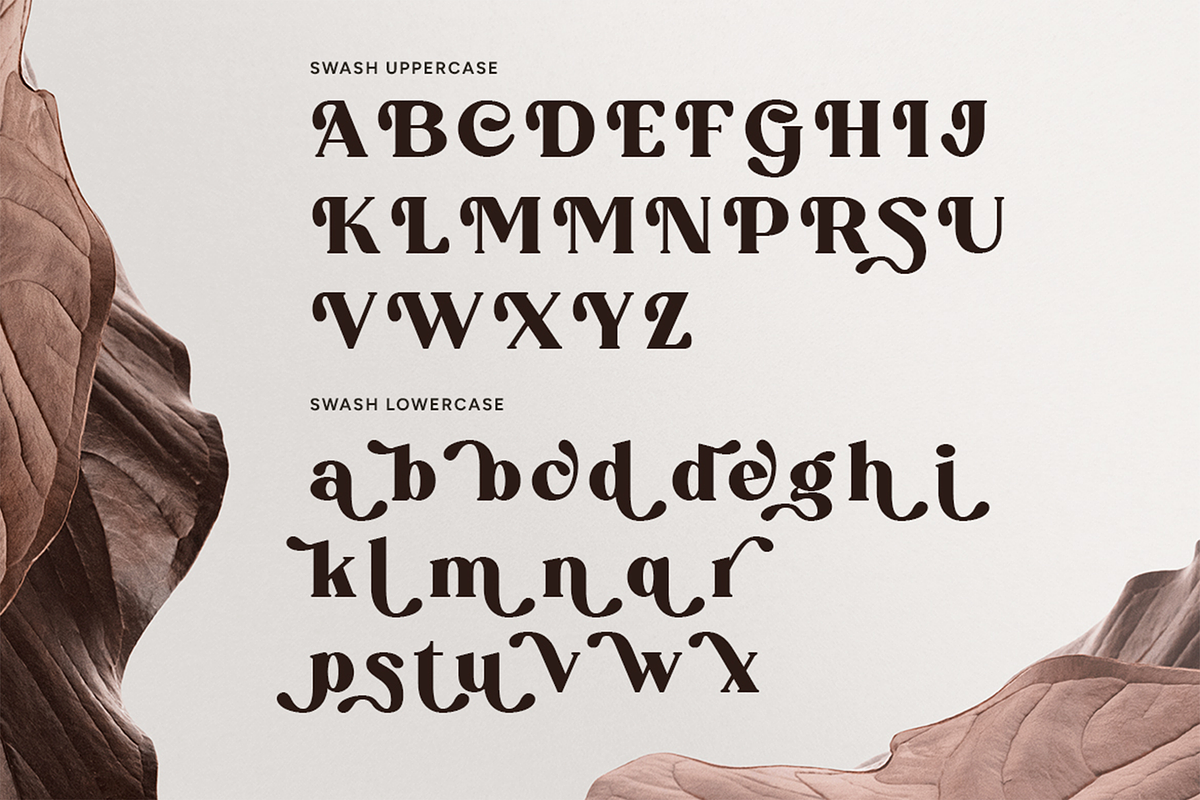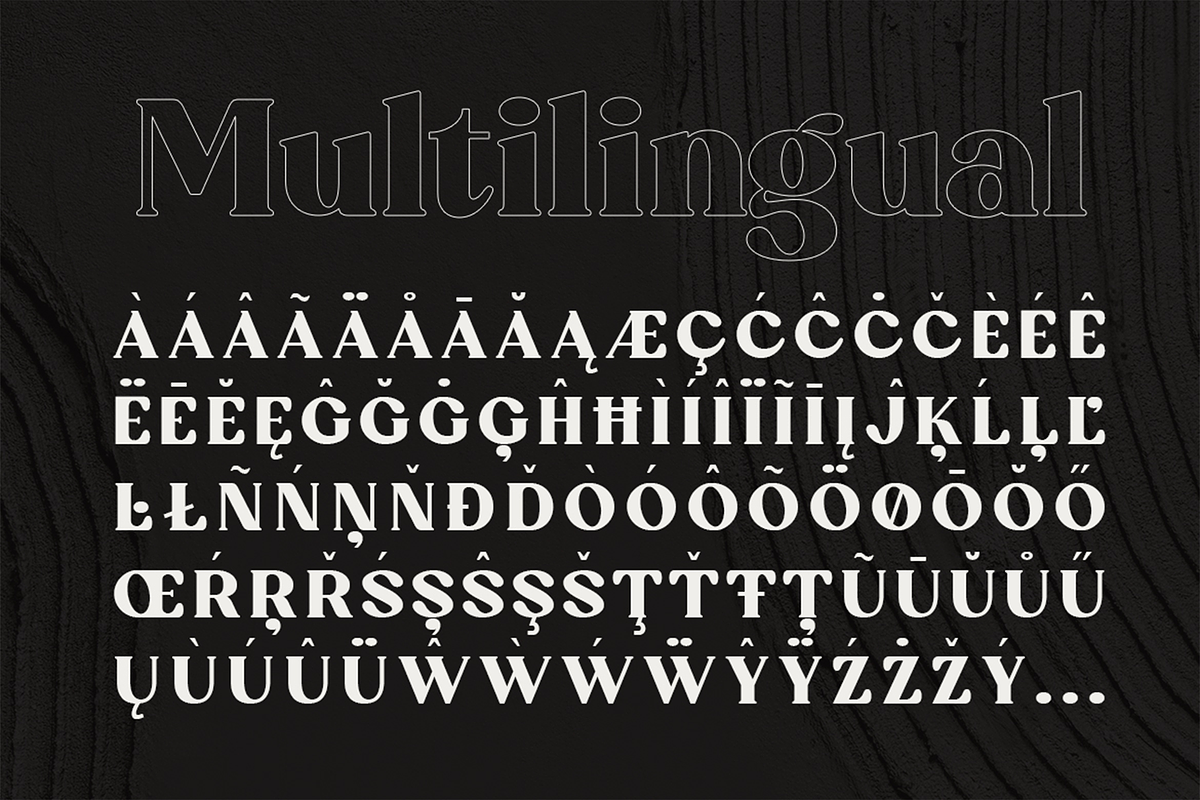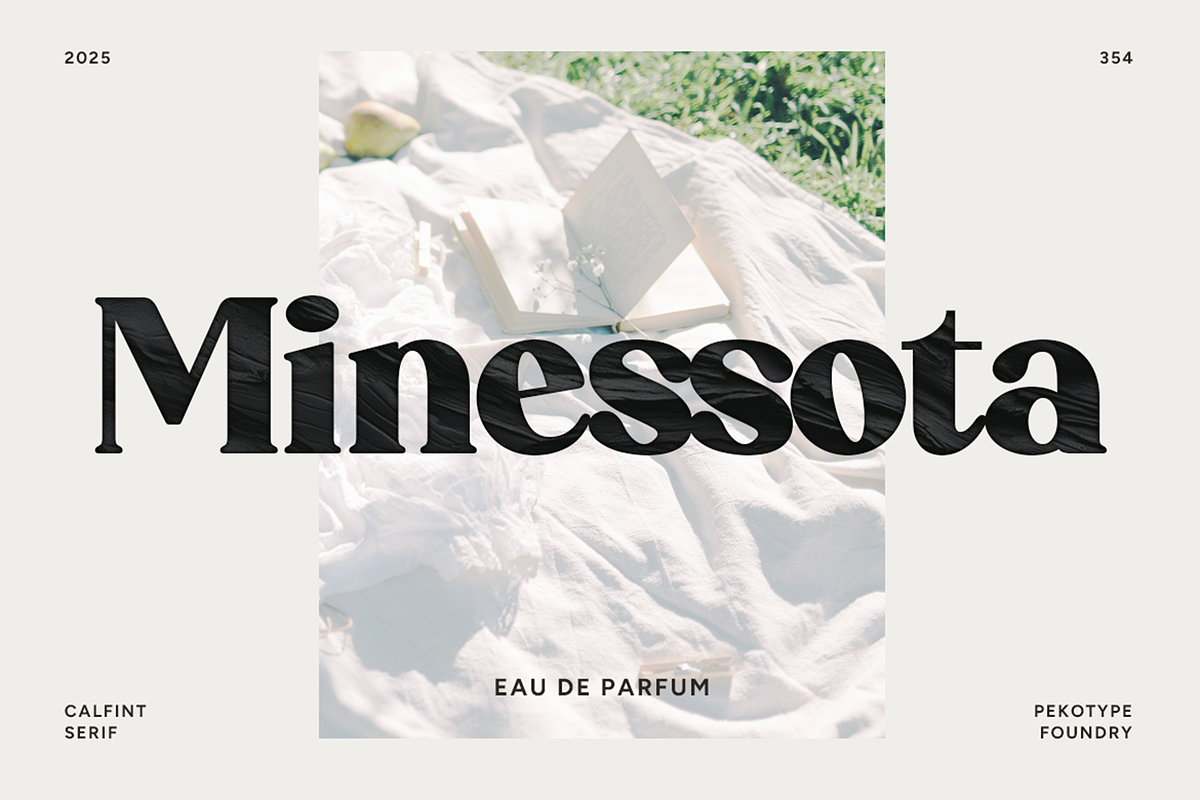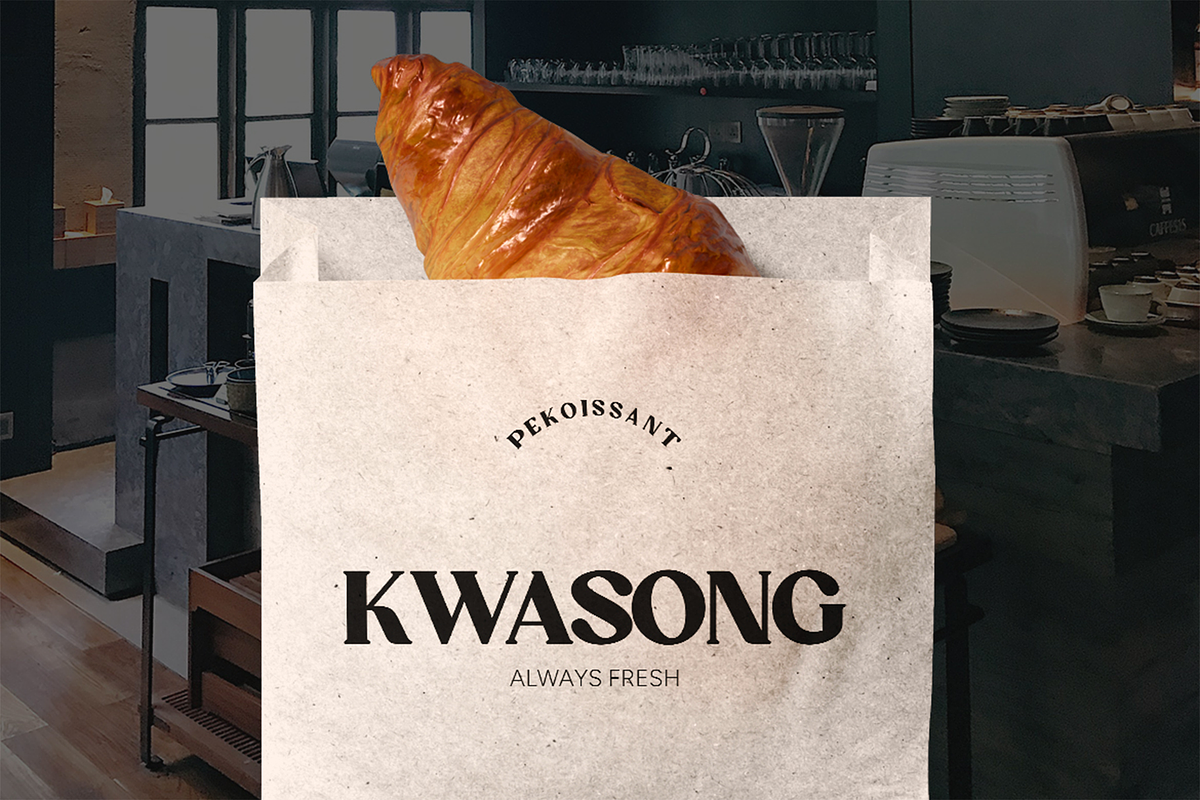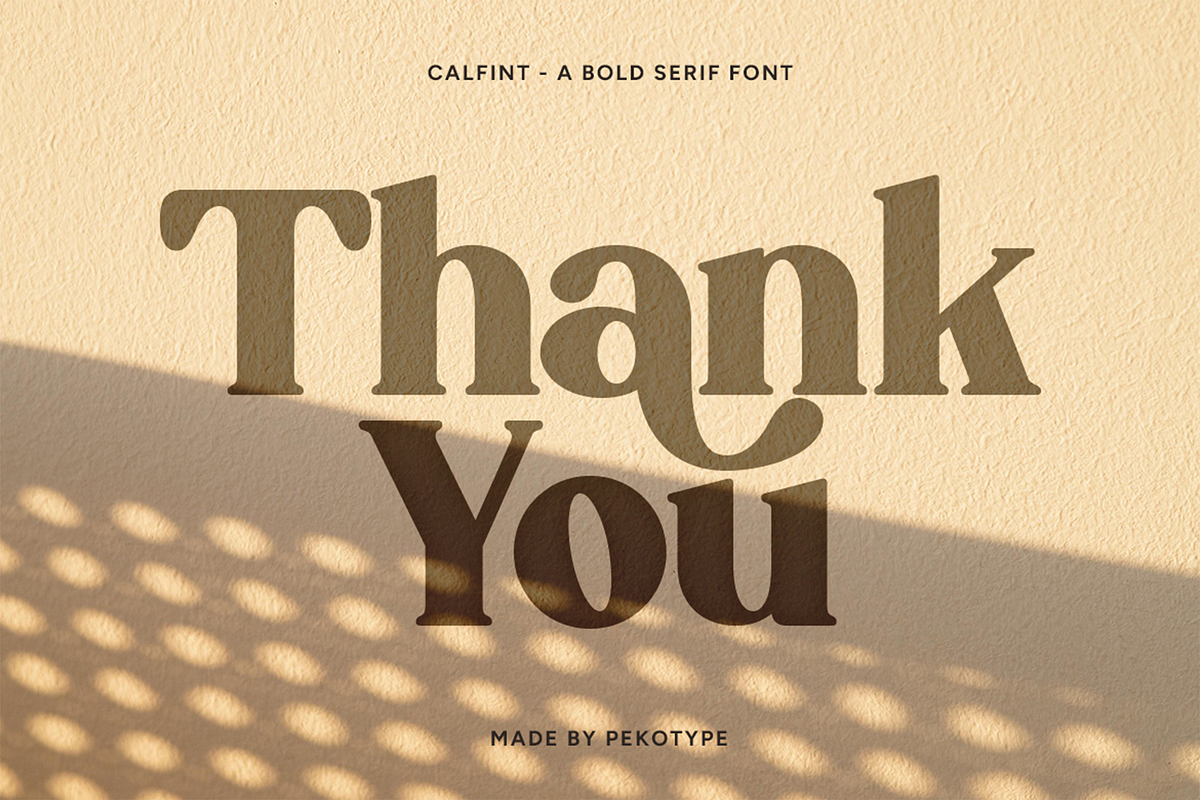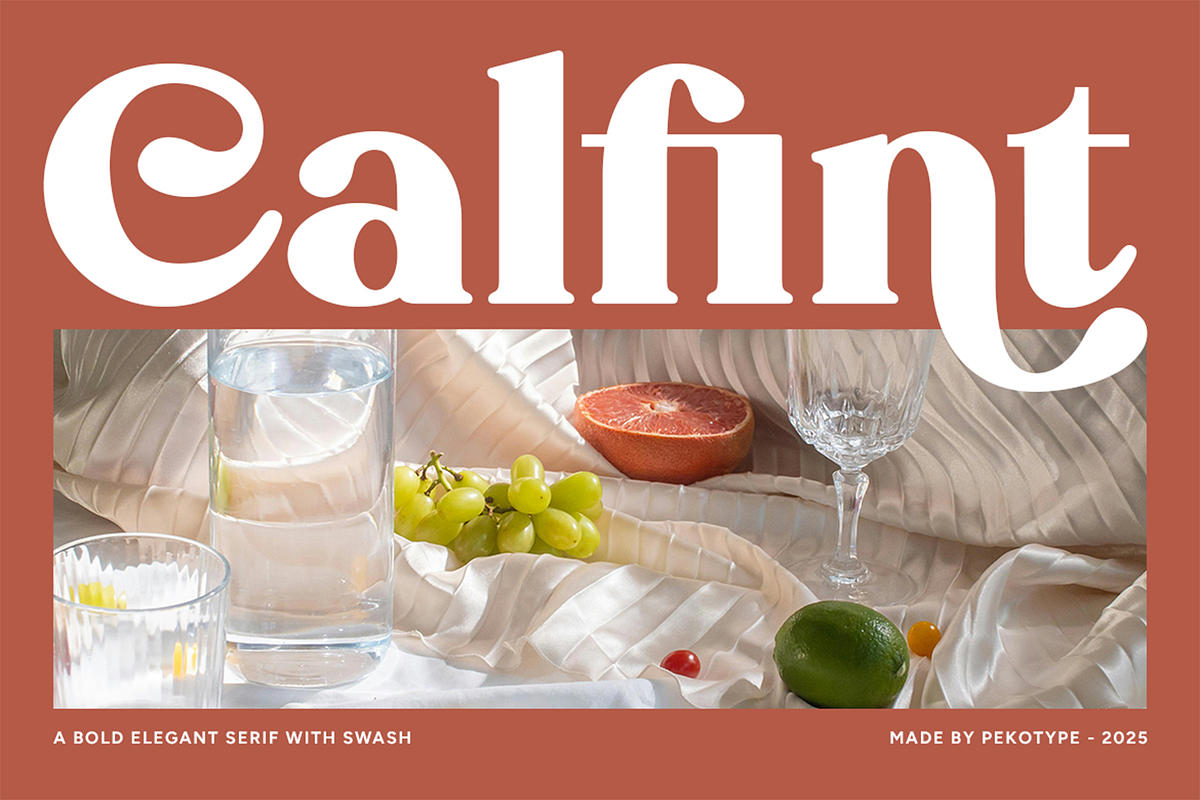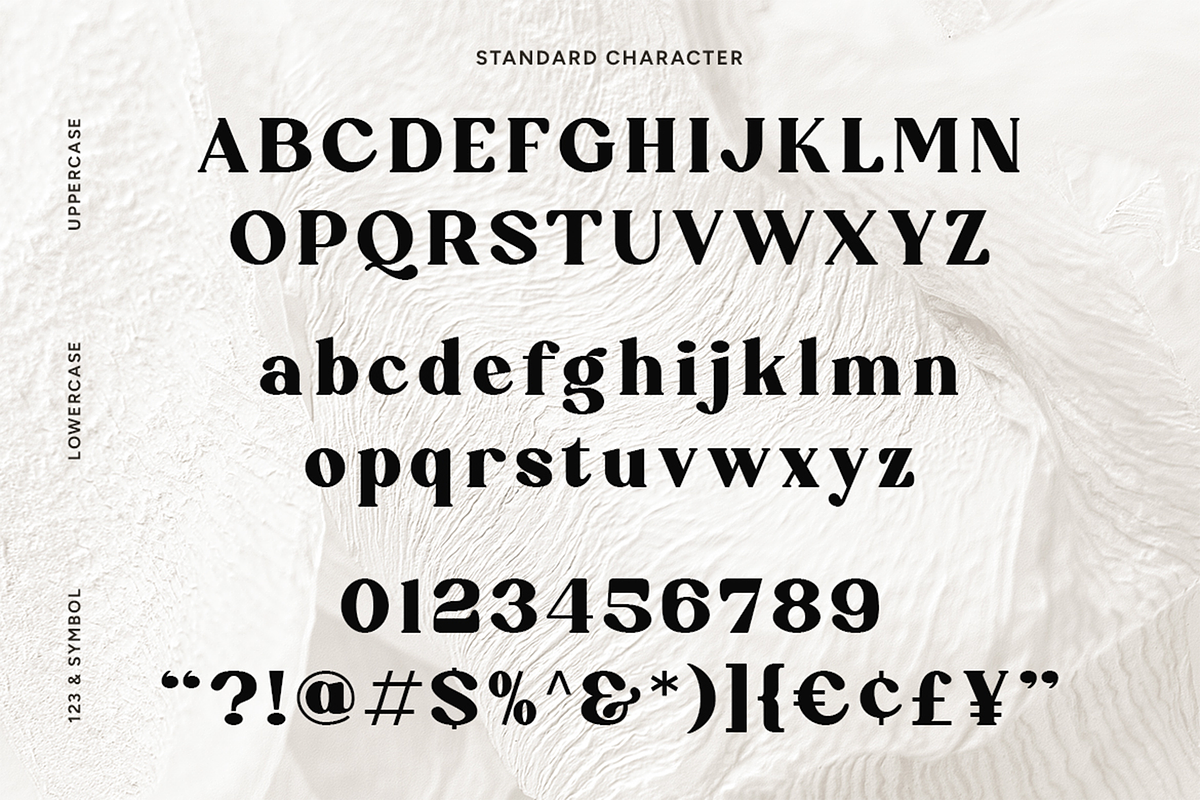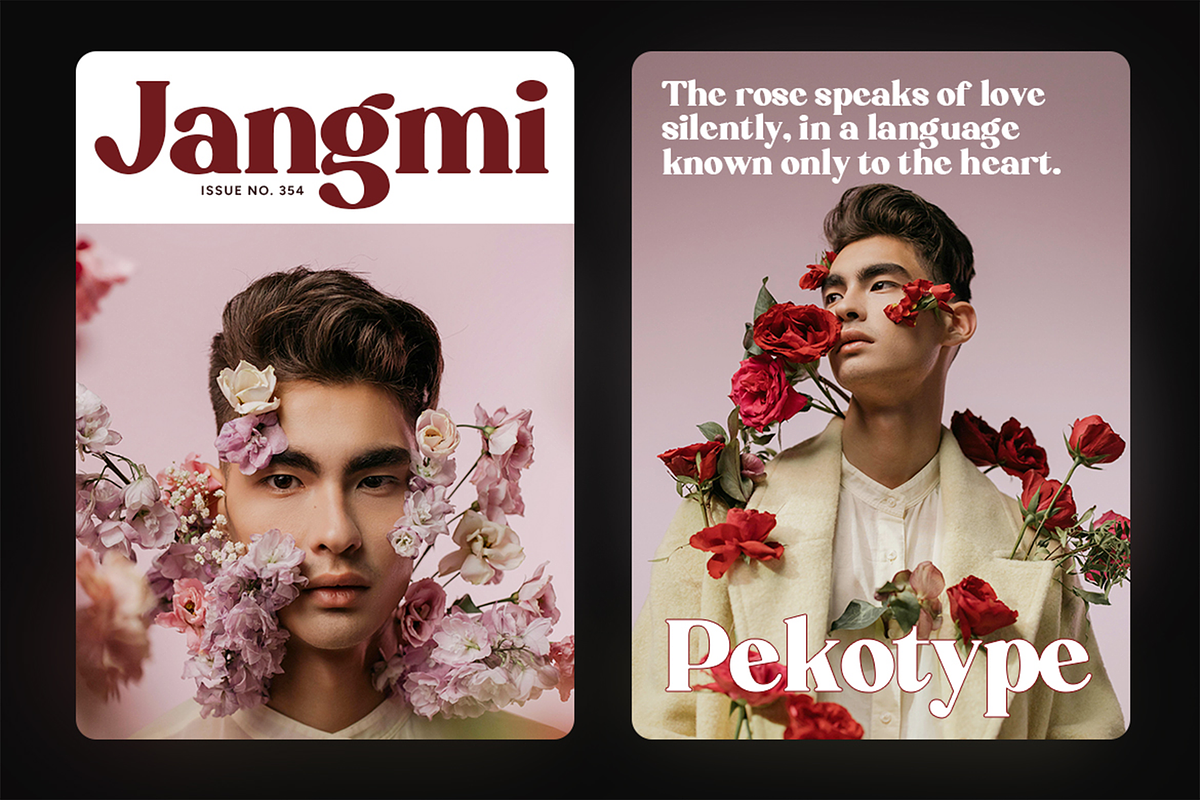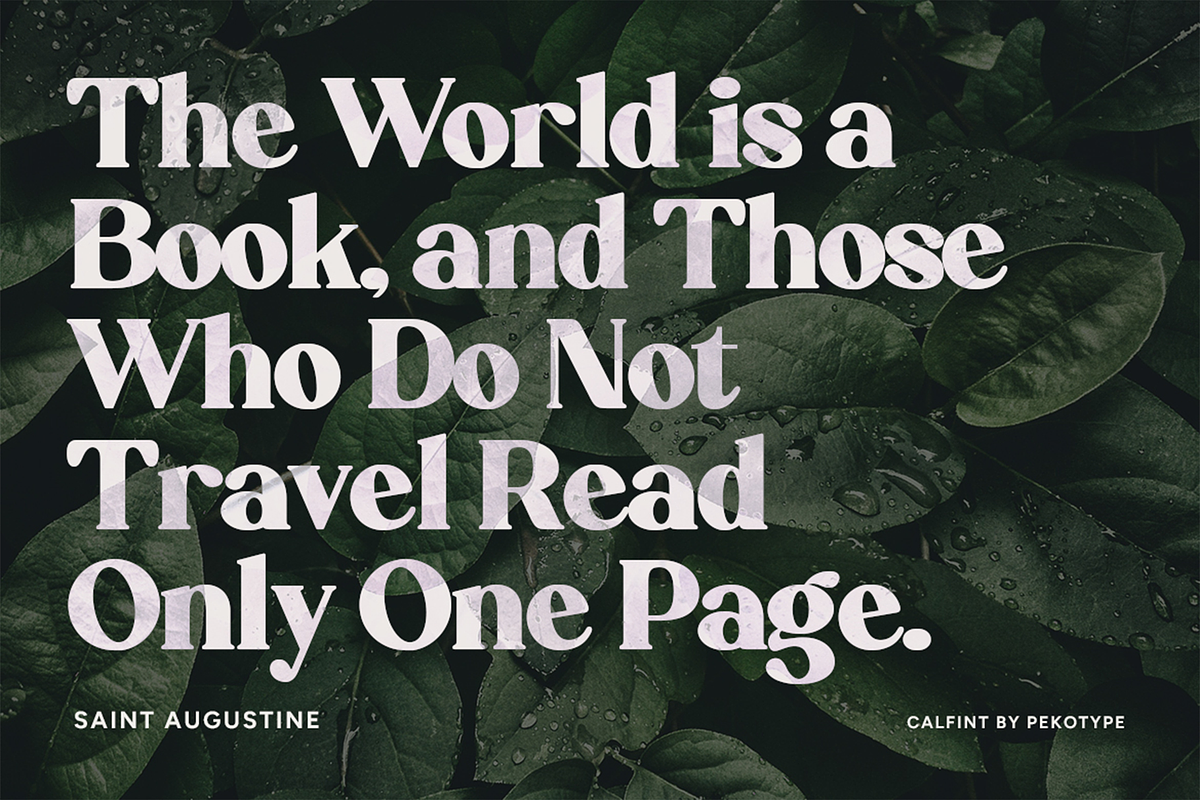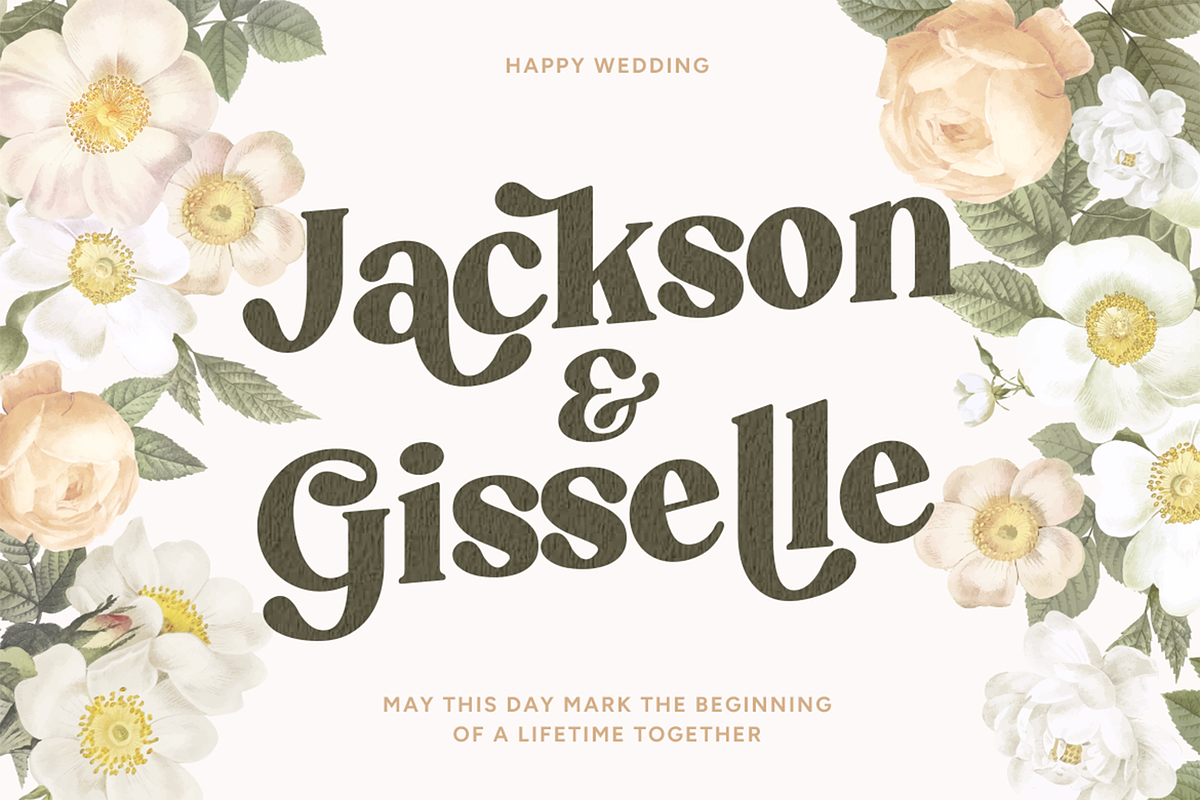
Calfint - Bold Serif Font
Introducing CALFINT – A Bold Serif with a Retro Twist
Make a statement with CALFINT, a bold serif display font that blends strength with a touch of vintage charm. Designed with thick, impactful letterforms and elegant swash features, CALFINT is perfect for headlines, branding, logos, social media, and display designs. Its retro-inspired aesthetic adds character while maintaining a modern appeal, making it a versatile choice for various creative projects.
- Numeral